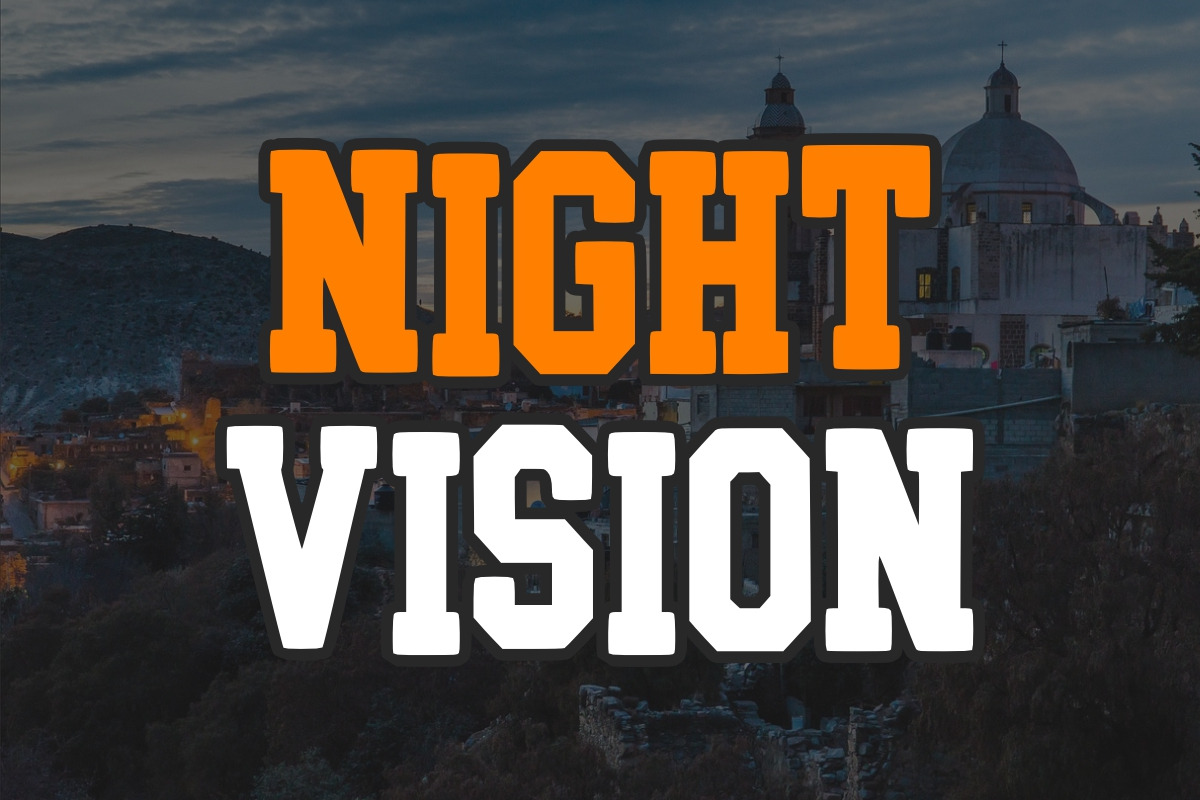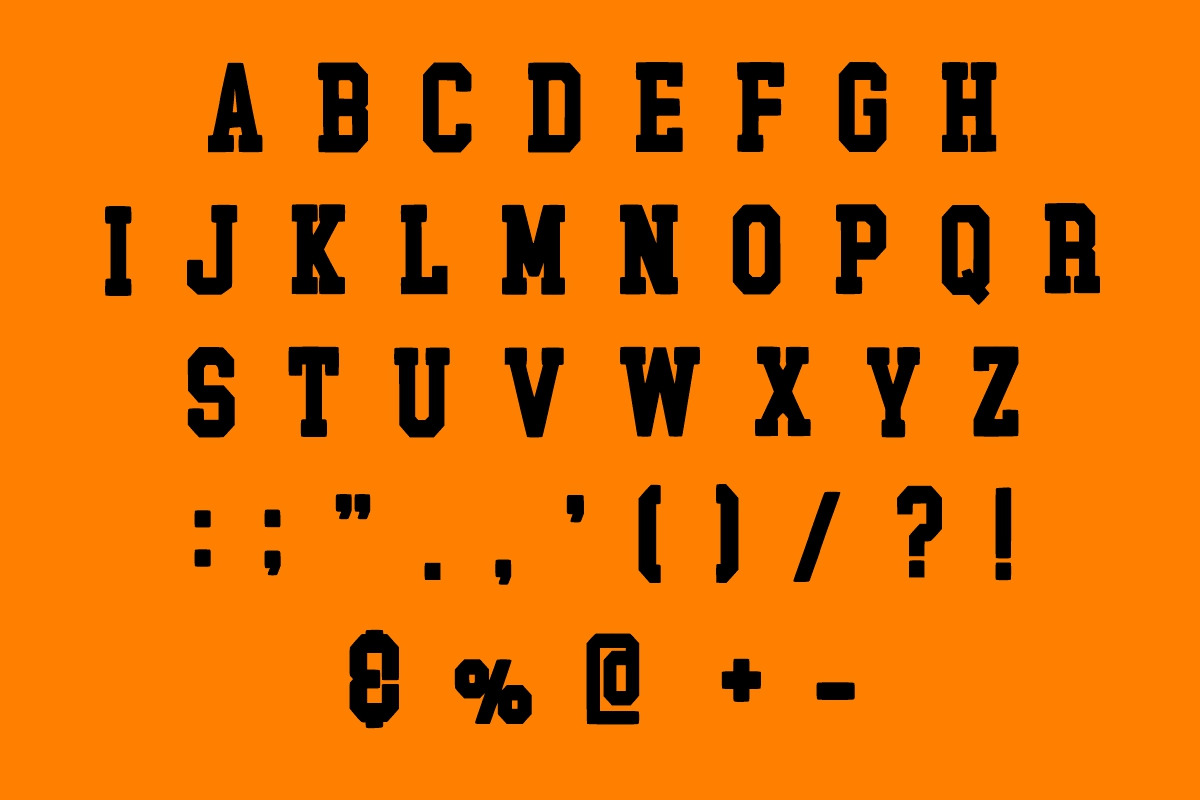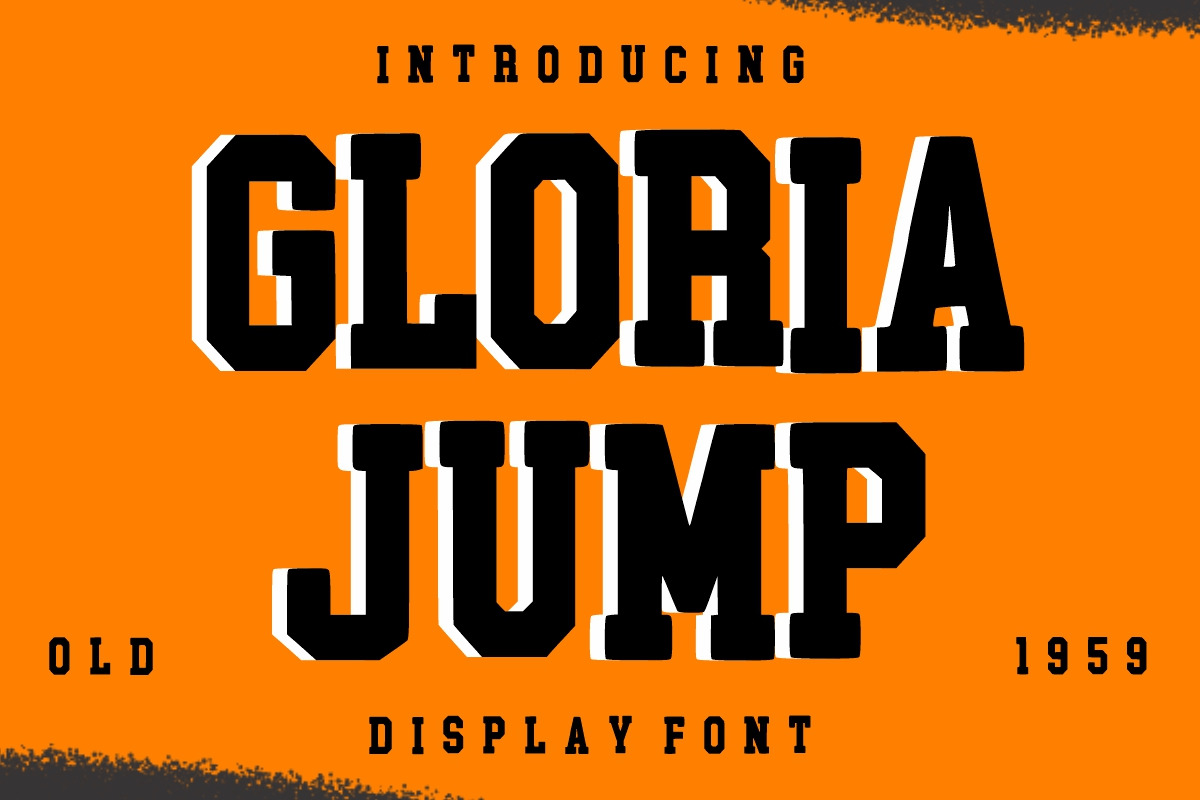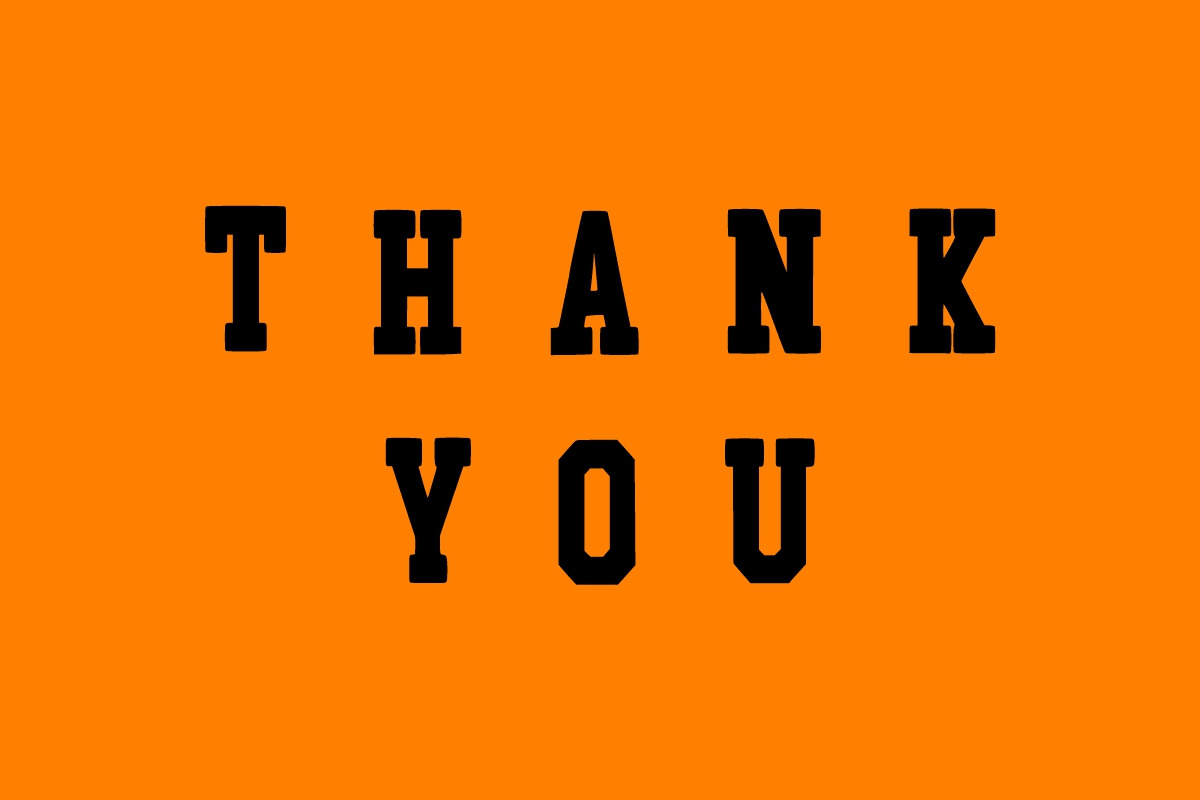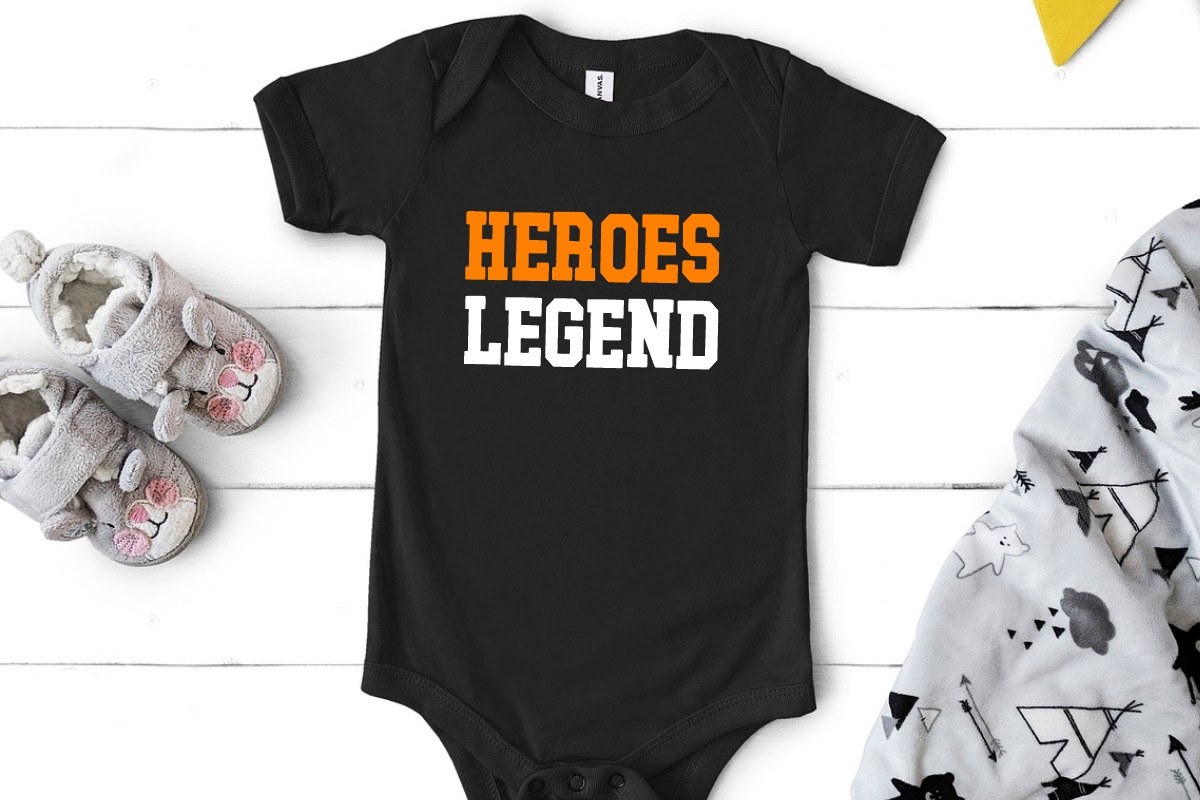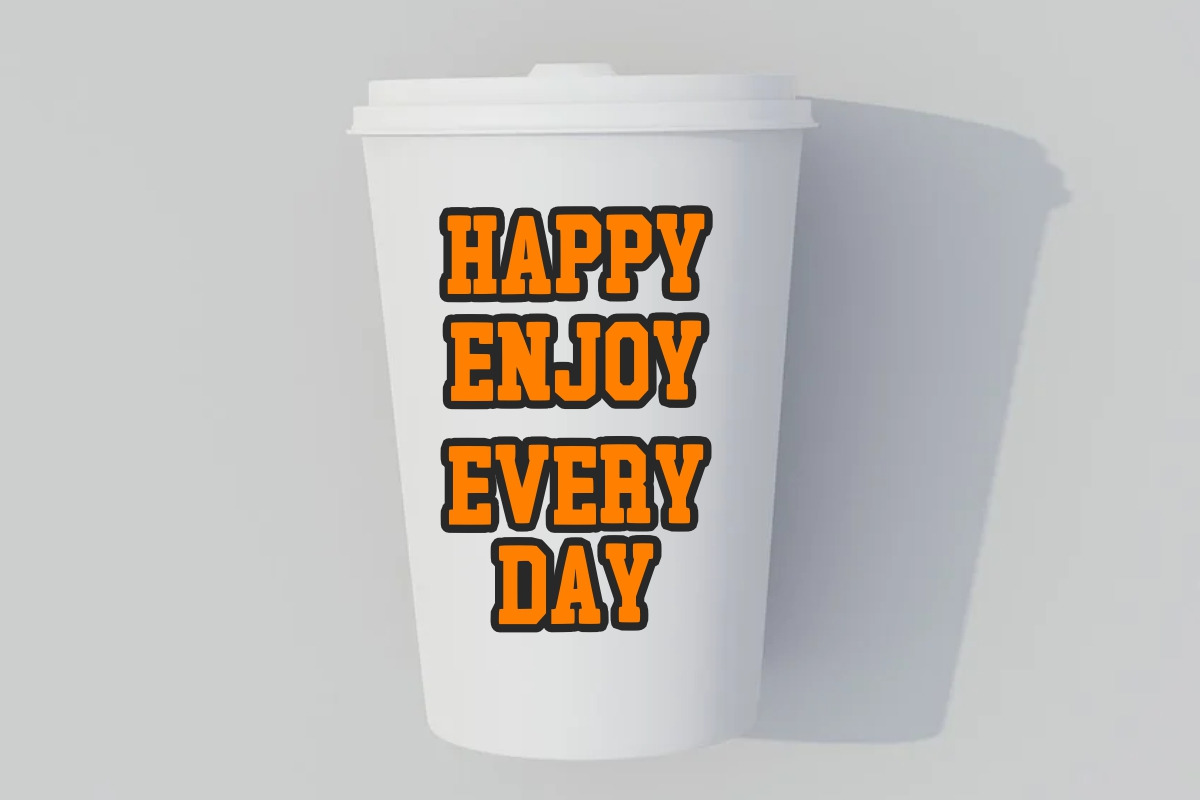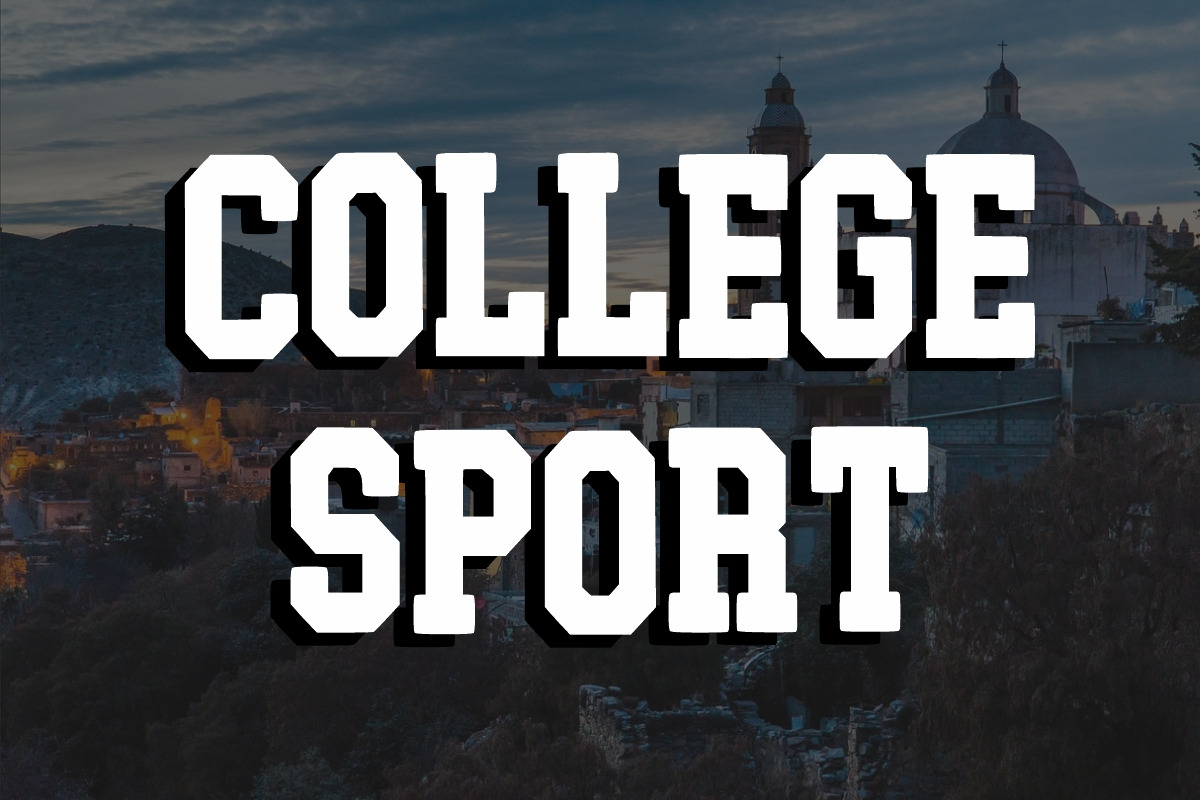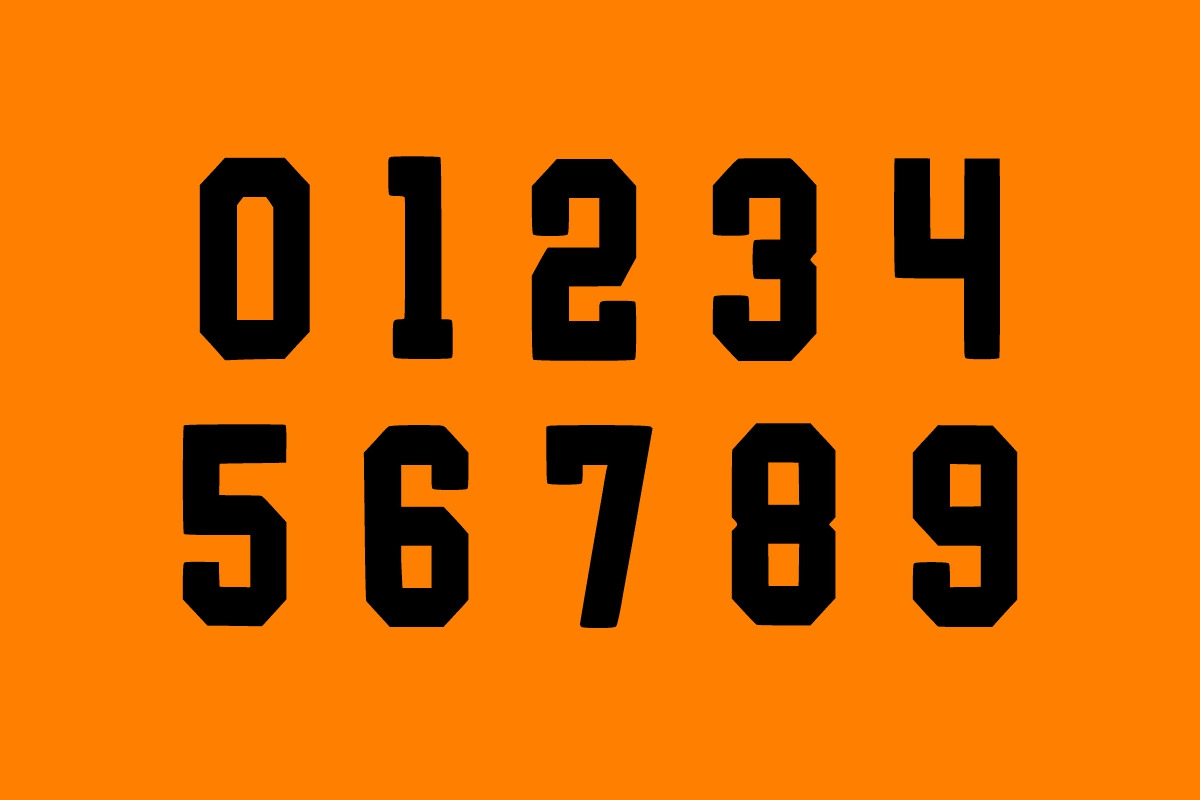
Gloria Jump Font
Gloria Jump is a bold and powerful vintage-style display font with a strong presence and athletic aesthetic. Inspired by old-school sports lettering and classic signage, this typeface is ideal for logos, posters, merchandise, and headlines that demand impact and nostalgia.